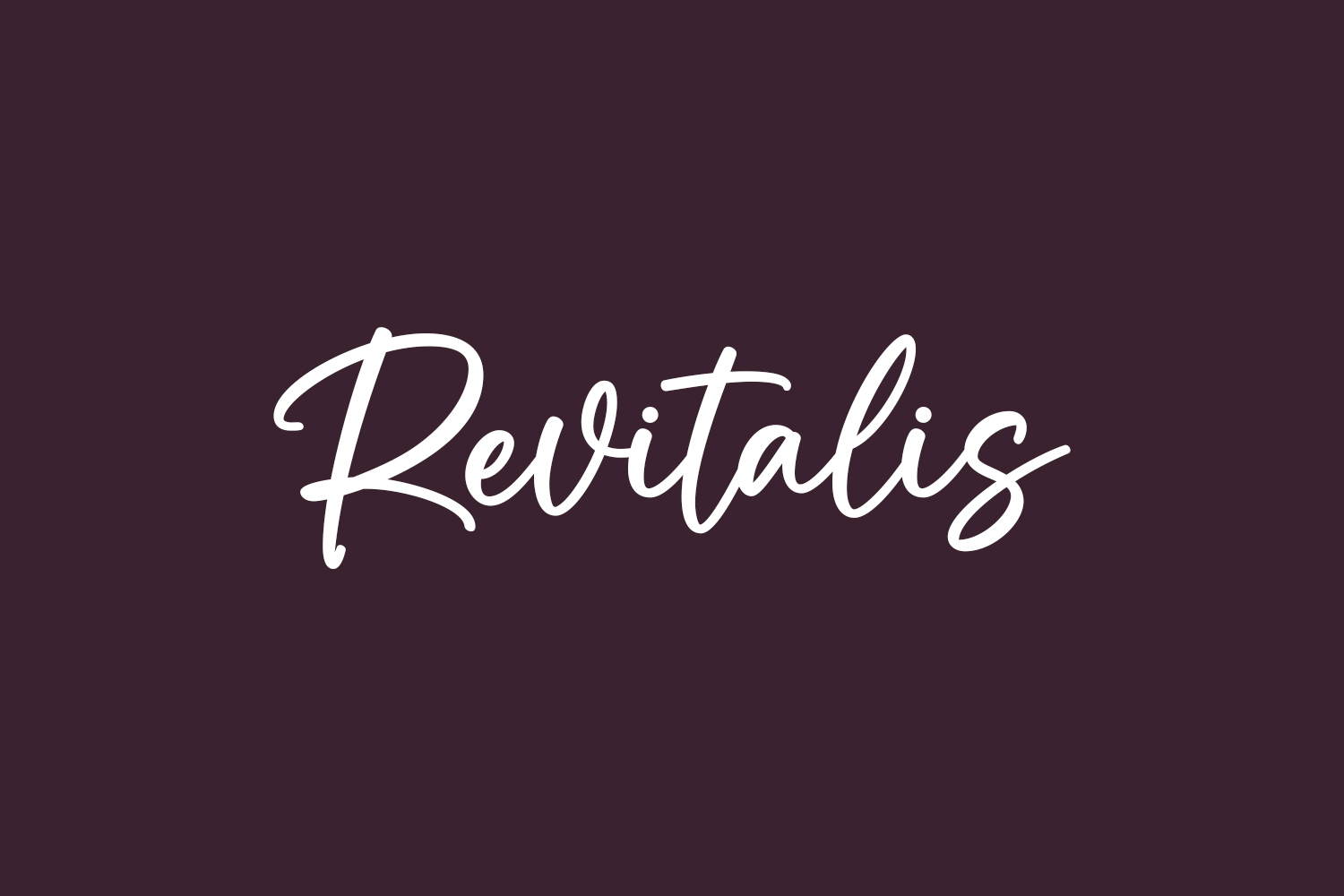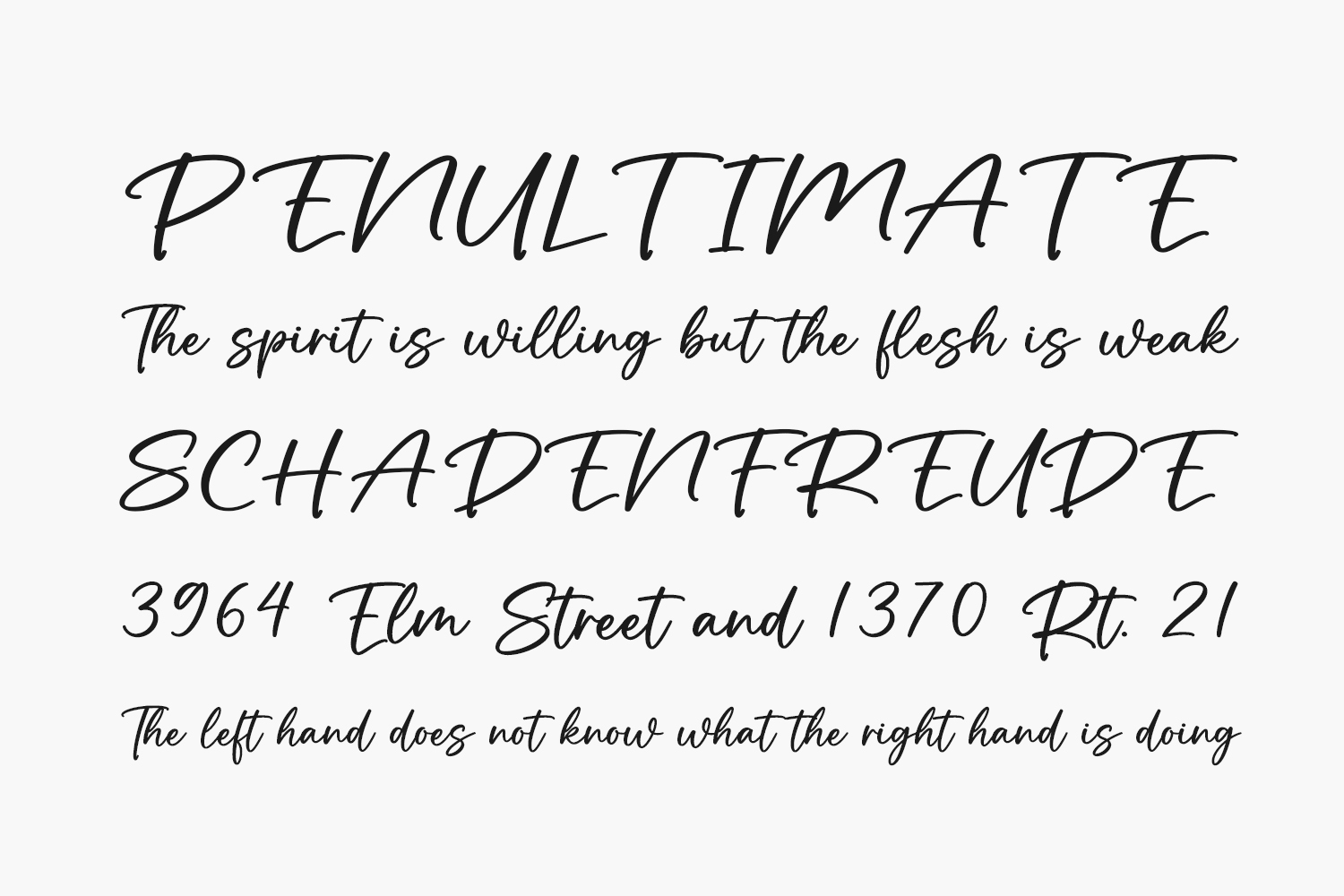
Revitalis Free Font is a charming and enduring handwritten font, making it the ultimate selection for crafting captivating logos, branding, and impactful quotes. Revitalis Free Font is free for personal use only. Please purchase the full version for commercial use.